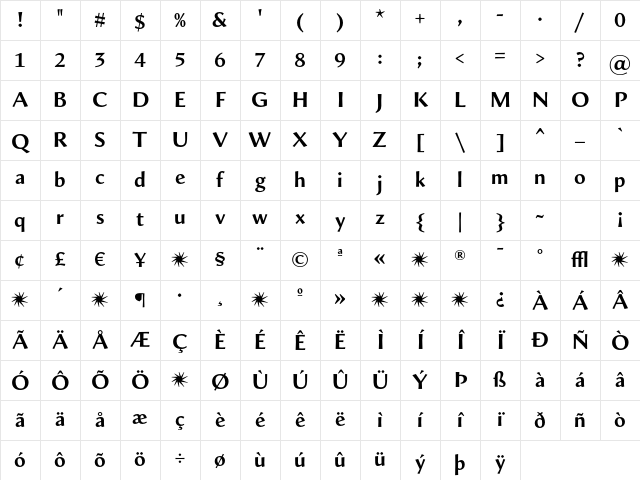
ShellSans BoldTable Free Font
ShellSans BoldTable
Style: BoldTable
Design Context for ShellSans
ShellSans is a composed and adaptable typeface that performs quietly and consistently across a wide range of design contexts. Its bold stroke weight gives it real presence on the page.